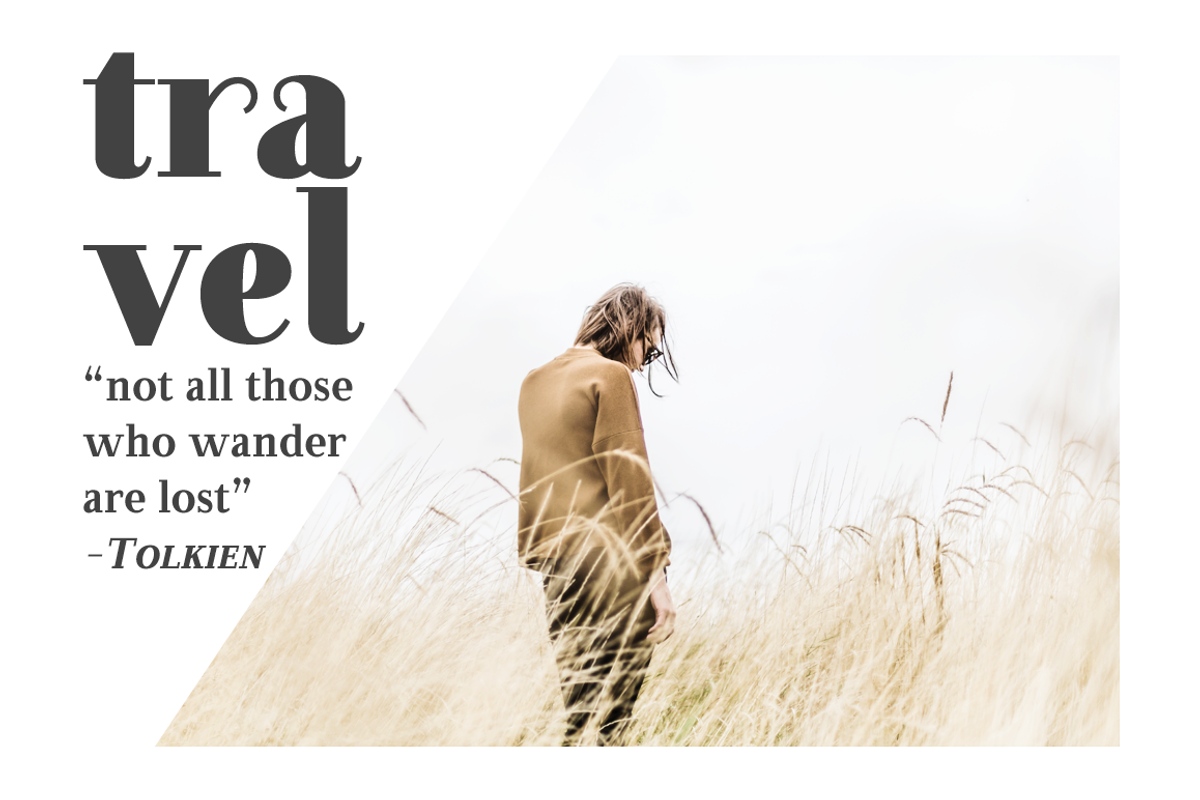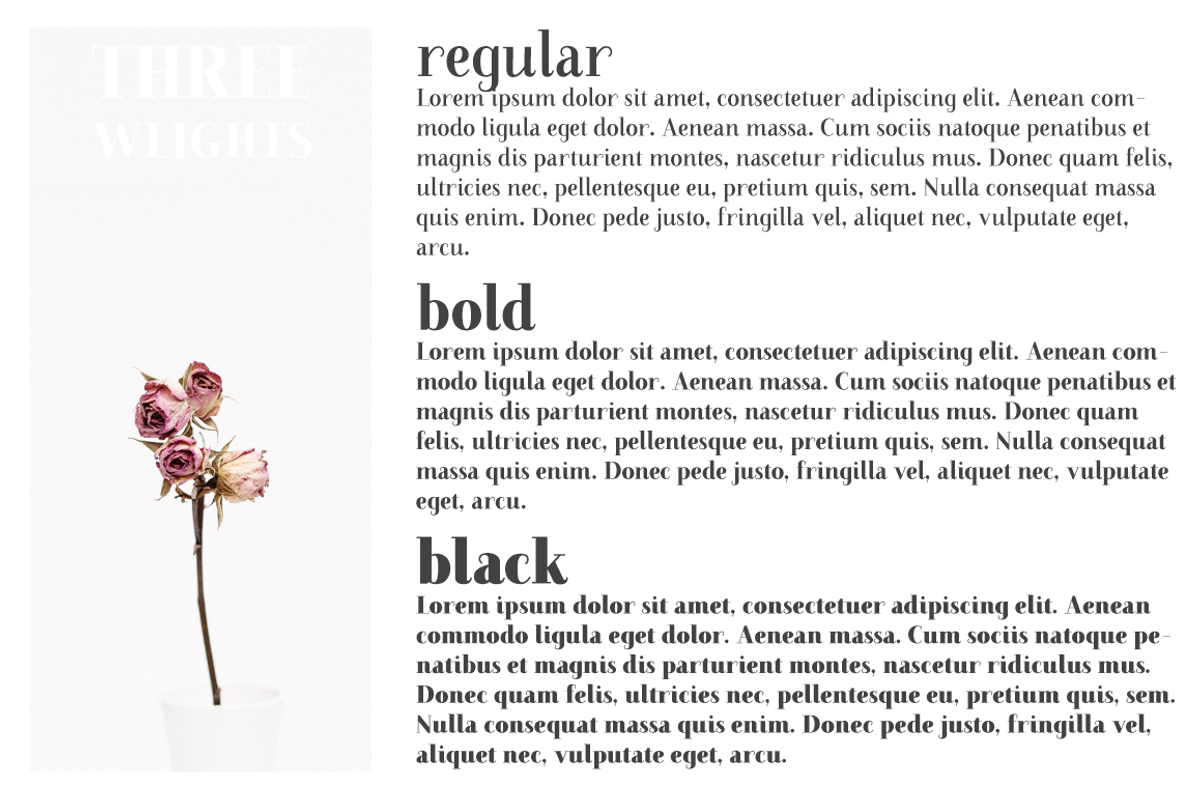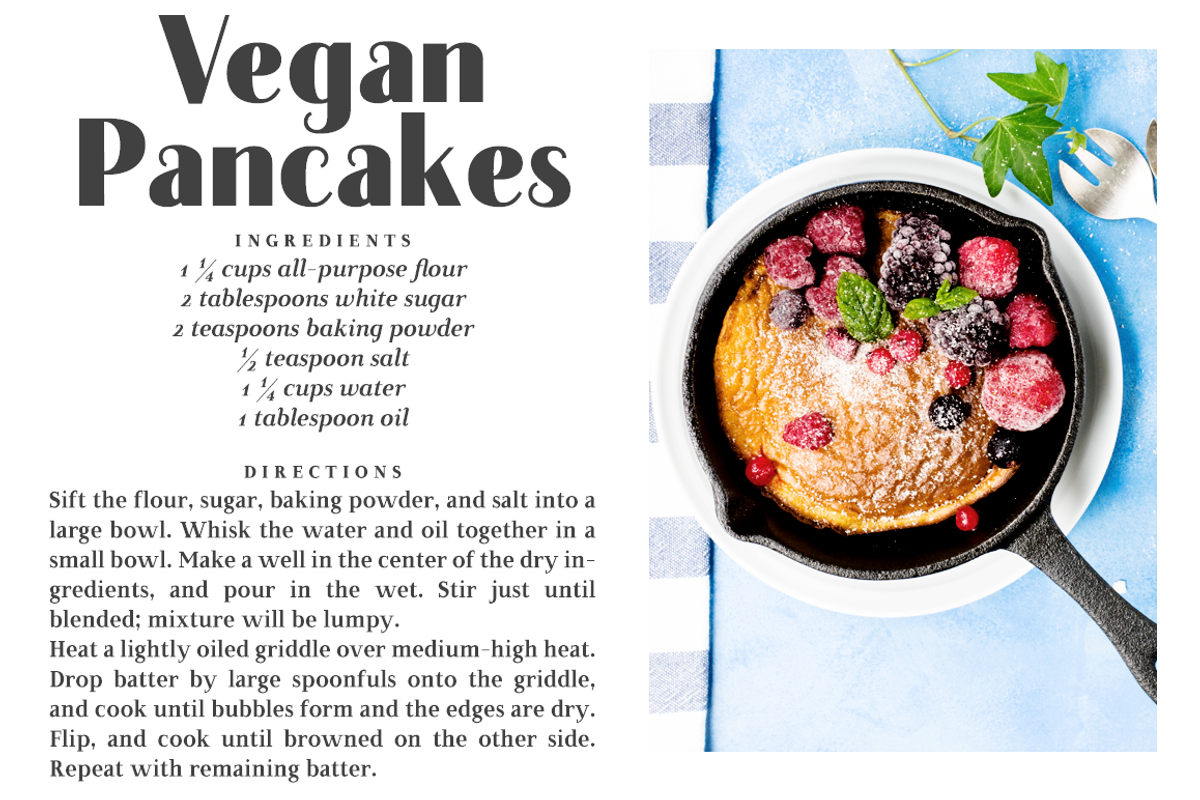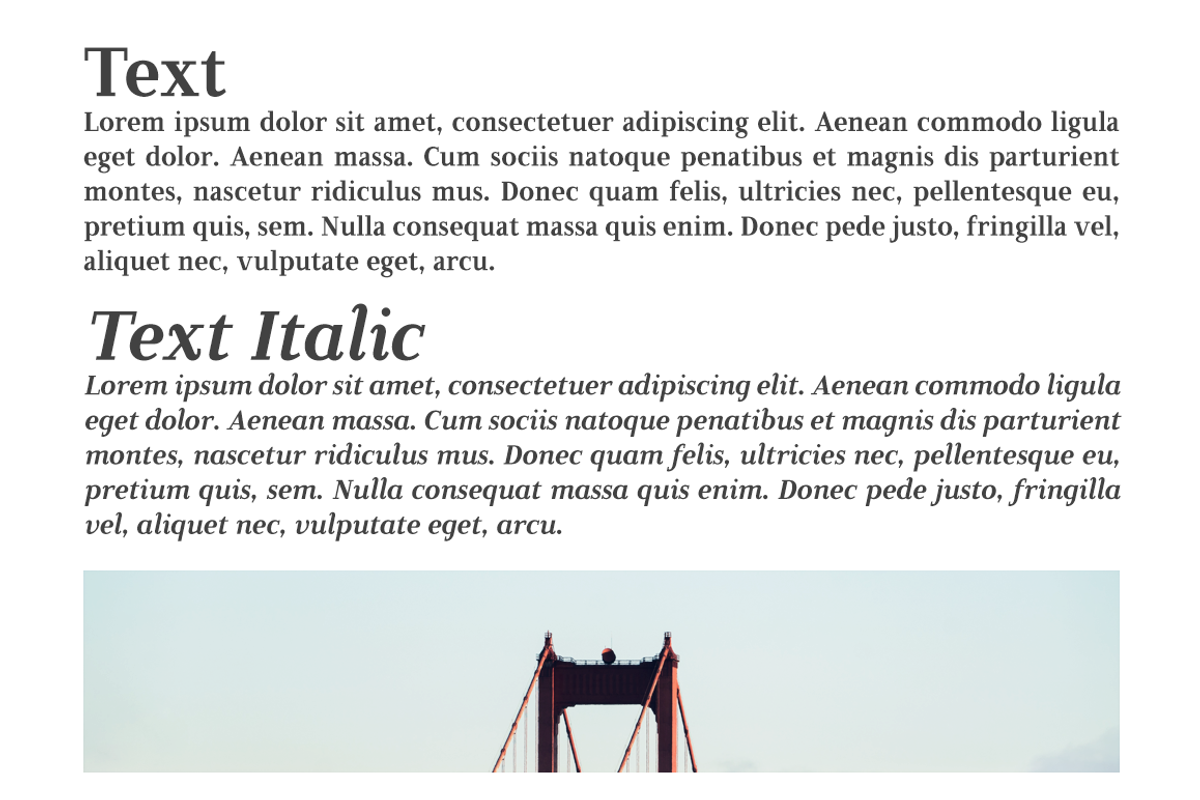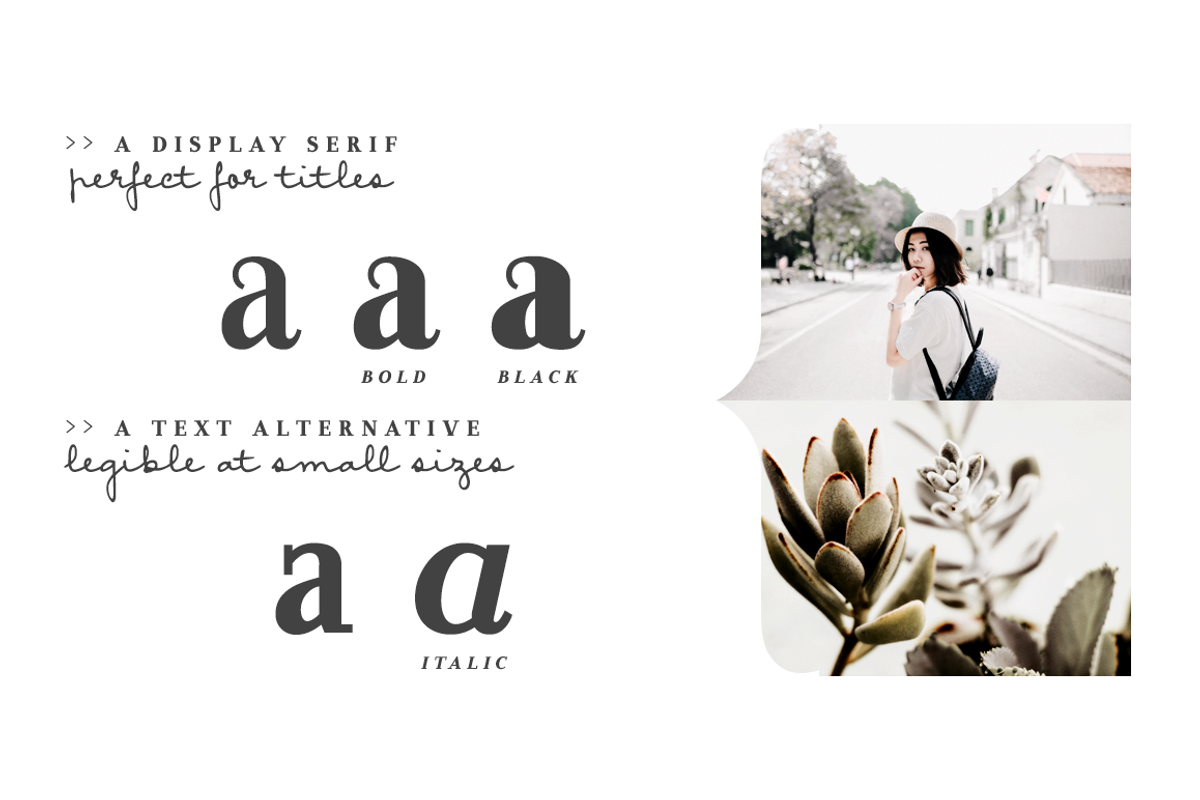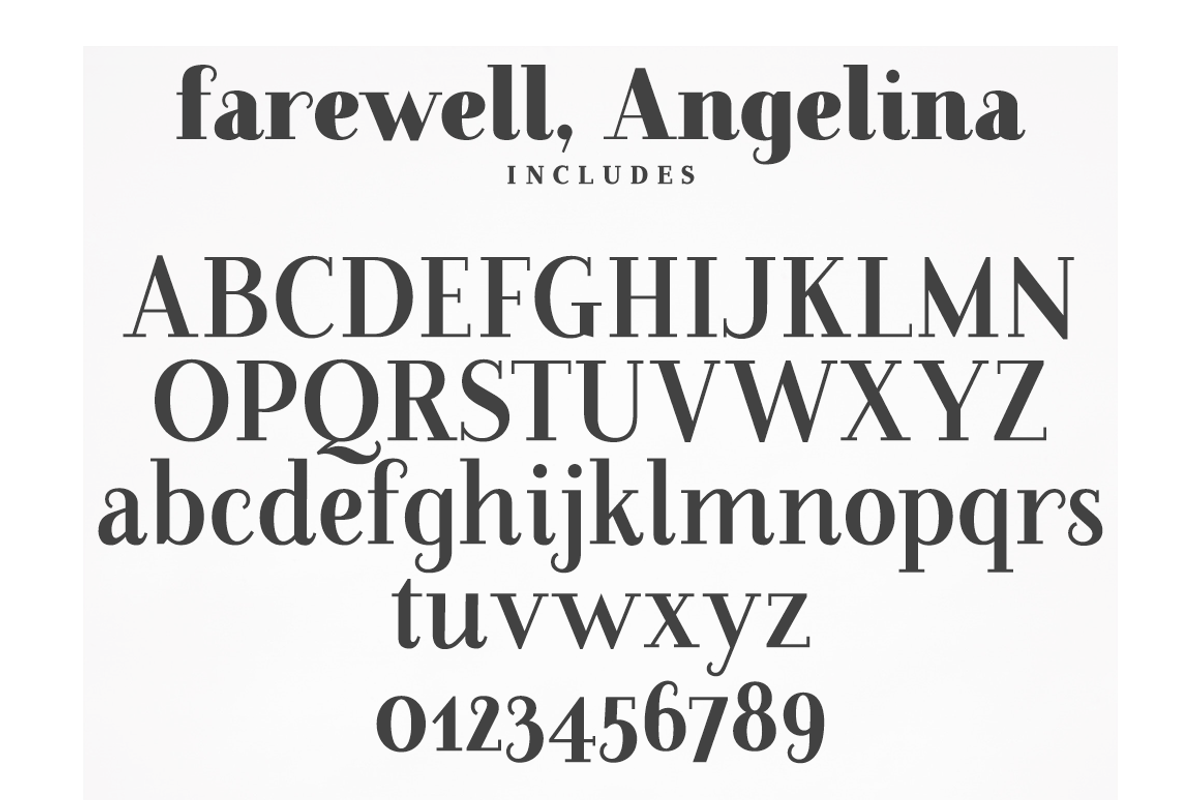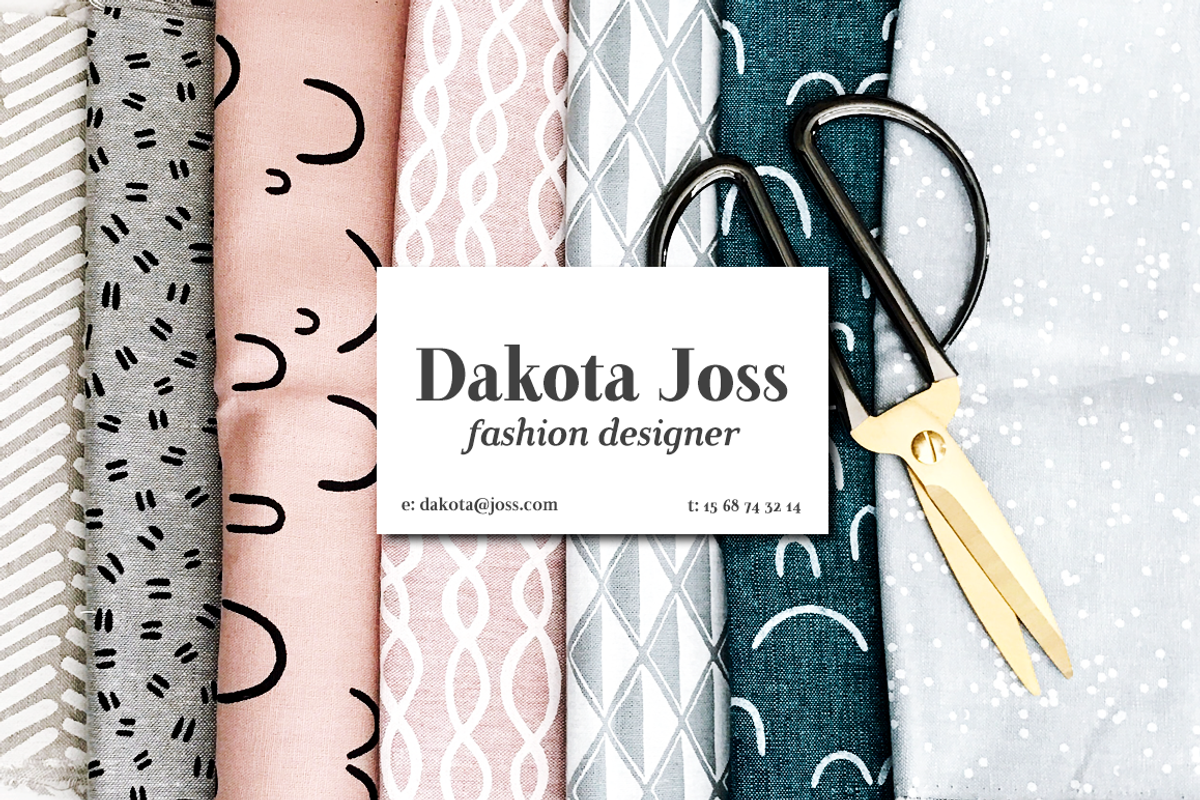
Farewell Angelina elegant font family
Farewell, Angelina is an elegant font family with a feminine flair. It includes:
a display font with 3 weights: regular, bold and black
a sans font with 3 weights: regular, bold and black, which look great at large sizes
a text font in 2 styles: regular and italic, which look great at small sizes and in longer texts
punctuation and symbols
Farewell, Angelina is perfect for magazine layouts, creating logotypes, social media posts, branding and packaging.